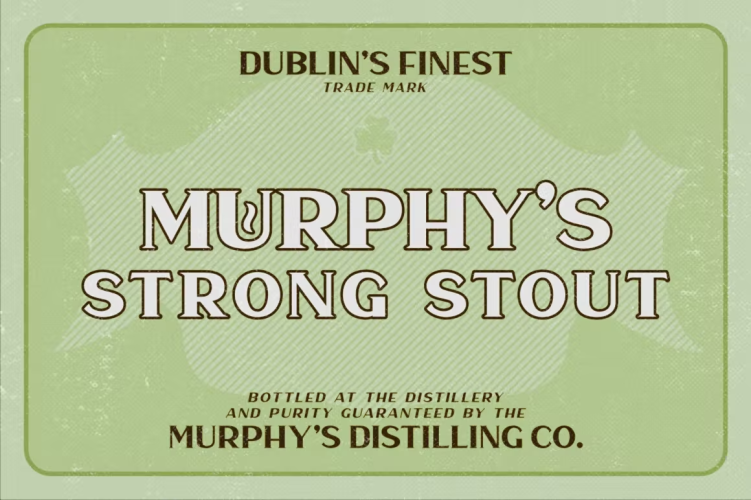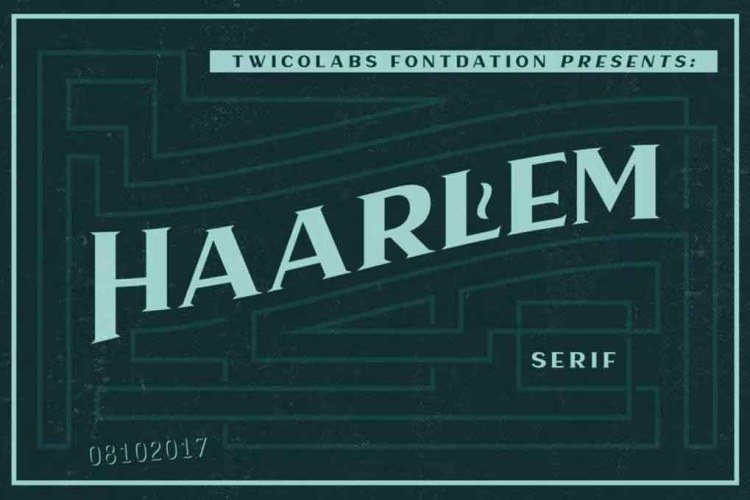
Haarlem Serif Font
Yo, ‘sup. It’s time for another family member from Haarlem; Haarlem Serif. The basic form is taken from its older bro, Haarlem Sans, a unique combination of fat vertical and thin horizontal lines. This all-caps font suits well for any occasions; its wide form gives you a classic feel, while the serif adds an extra tough-looking feel at the same time. If you’re a fan of classic/vintage typography/design, this font is a must have!
Haarlem Serif Font is a Serif Fonts font that brings a professional and versatile look to your projects. Yo, ‘sup. It’s time for another family member from Haarlem; Haarlem Serif .